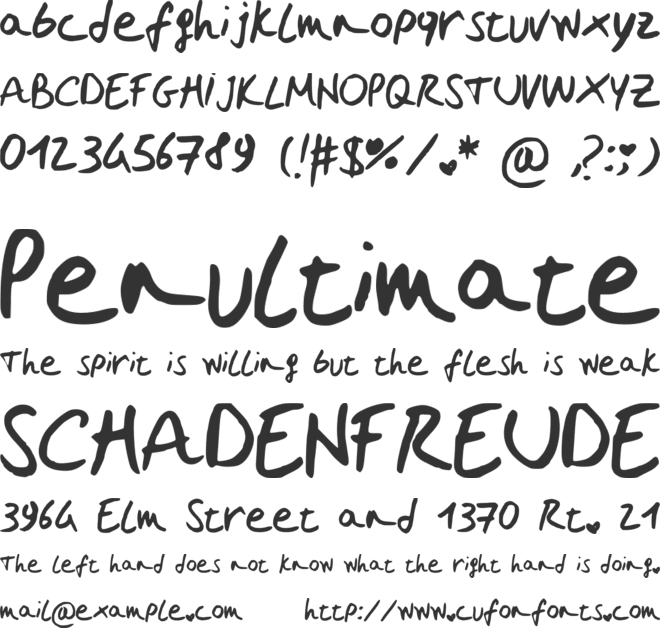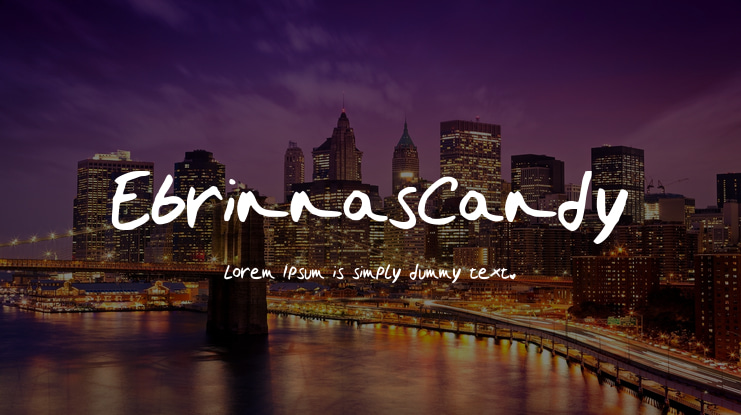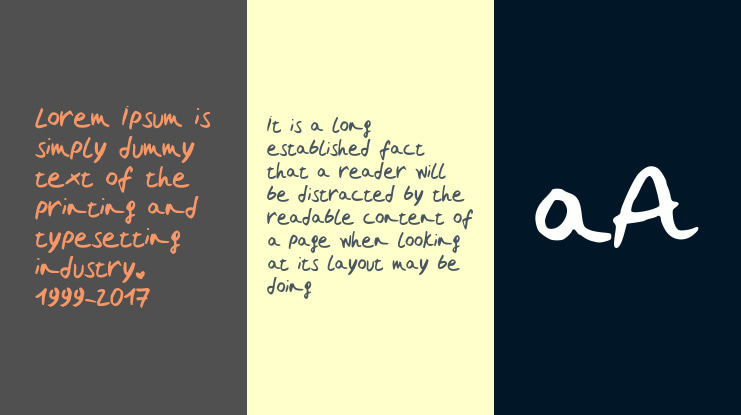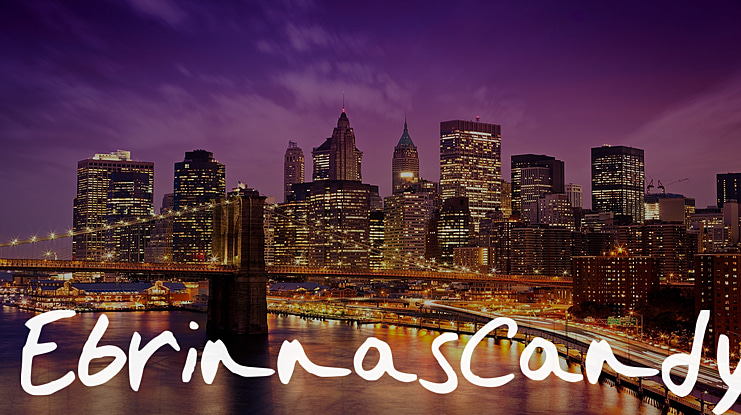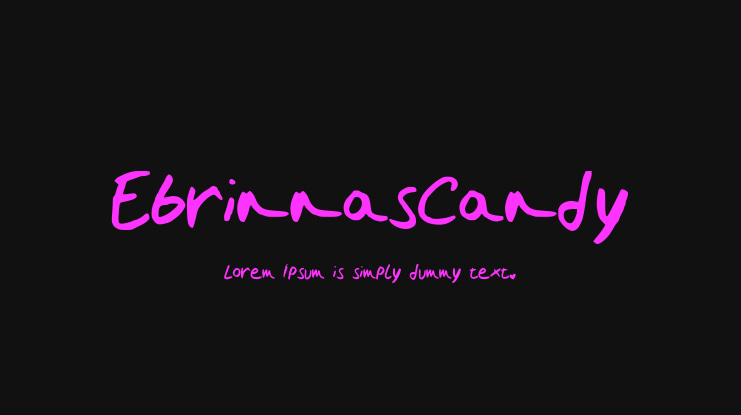
EbrinnasCandy Font
Lulling soft font designed to creative small great ideas in order to create smashing hipster representations and, why not?, personal image designs.